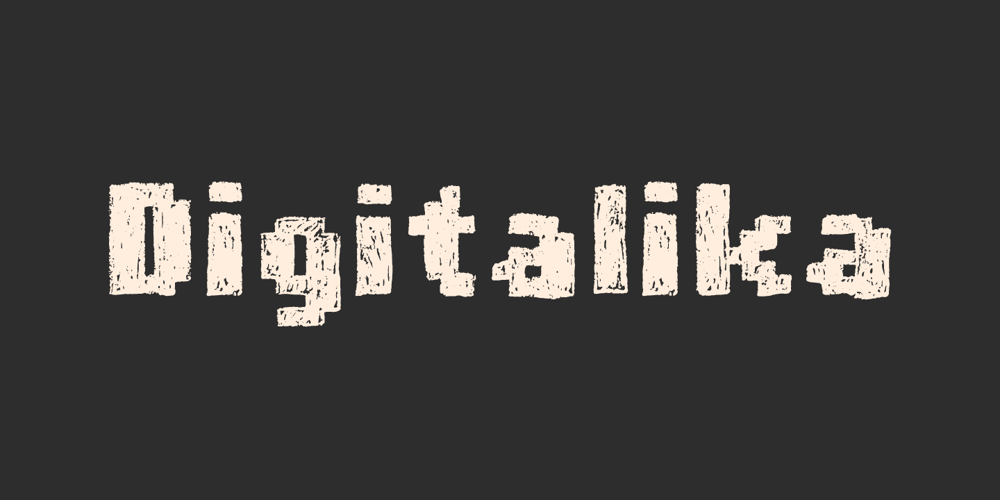
Digitalika Font Family was designed by Jakob Fischer and published by PizzaDude.dk. Digitalika contains 1 styles and family package options. Inspired by some scribbles I made as a young kid in the 80’ies at school – when I should have paid attention to the teacher! Comes with a complete multilingual set of letters with alternate versions of both upper- and lowercase